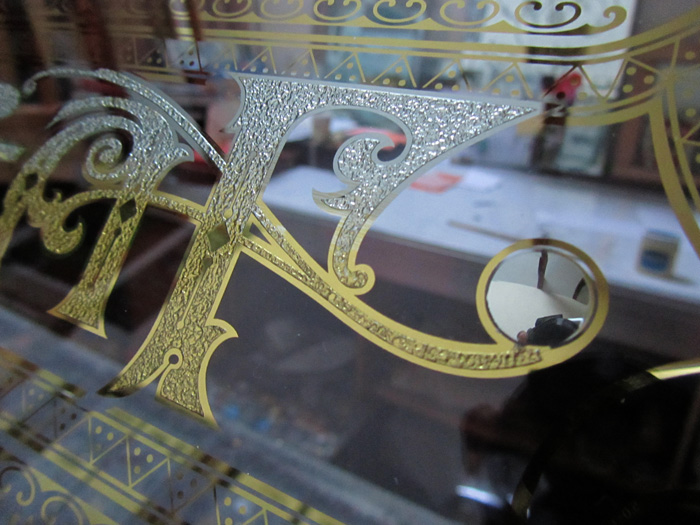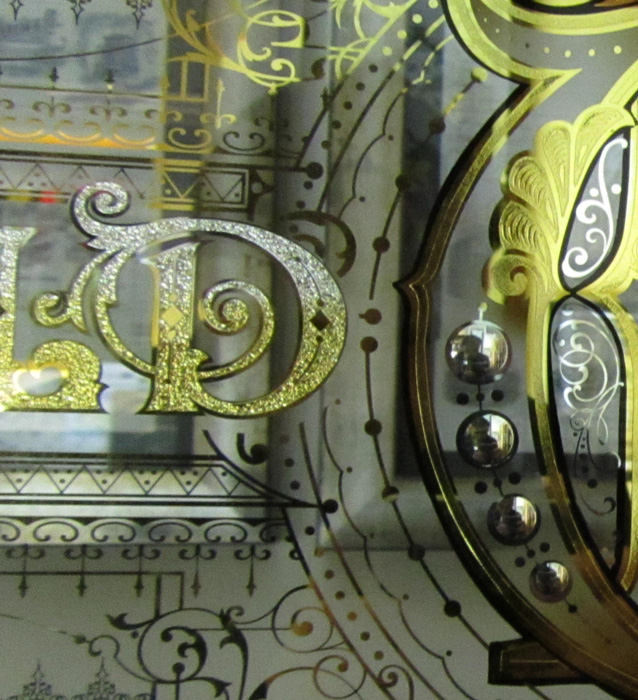
I actually prefere hand painted work also Bruce kind of more satisfying with the end look being hand done. I like to see the brushwork sometimes .I can get a much tighter detailed job with screen printing and that also has it's place. Do you pounce your pattern on your gold? I have used carbon paper with great success and no marking to the glass.. Hey Bruce what is the weather like over your way I bet your nice and warm? I took the dog round the block tonight and it was -5 ,we are cold over here right now..
warm? not exactly...the weather here is really quite strange lately. Unseasonably wet. We have suffered 10 years of drought with water storage levels getting extremely low. To the point that for the last couple of years it has been illegal to water gardens, wash cars, fill swimming pools, etc. Another year of drought would have seen the end of many water-reliant industries, spiralling food prices and severe hardship for everyone.
But it broke, not just with rain...but with floods. unbelievable amounts of water across the country, especially up north. (despite which, Melbourne's water storage is still only about 50% and will take another couple of years to fill)
Australia is a land of extremes.
There's no doubt screen printing goes to tighter places than hand-painting (unless one is extremely fastidious and prepared to spend endless hours striving for perfection)
I can see the tight detail in one of the photos...a shot showing not just a clean even scroll, but it even has an etched centre all the way down to a tiny little curl.
As for transfering design onto the back of the gold...I always use carbon paper. I used to use a pounce, but I didn't like the little hills of chalk that can turn a line into a painted line into something that looks like the perforated edge of toilet paper. Carbon paper is great. I use the soft blue paper (not typing carbon) and go over it gently with a very hard and sharp 6H pencil to render a fine faint line. Don't press too hard, otherwise you get a dark thick waxy line. Then I lightly dust it with talc to make the line much more visible.
Now a question for you...I notice you are using blended gilding in your recent works, including your "studio of" piece featured here. Often a blend from 23 carat to white gold (or perhaps it is silver). I assume you are applying one type of leaf, rubbing it back, then applying the other leaf...but I also note that you use this over etched and chipped sections. I wonder; How does that change your method? Perhaps you are sometimes using angel gilding for the background metal. Would you like to share your techniques for getting this effect?
That is Extreme Bruce . We are having some fun over here also with the weather, I hate the cold give me sunshine everyday...
The gold blends are the same for both acid and glue chip, I tend to always gild the gold first and then the 12crt silver look as i find easier to remove the gold than the silver. I have used the chemical process in the past and had good results in removing the silver finish but I find the traditional way of using leaf easier.
Apply your gold and scratch away with a nylon brush almost like a tooth brush but harder,the chipped area kind of blends it self as the chipping helps hide any mistakes and evens out the blend. Attached a panel I designed for a workshop I had here wih Coline Samin from Cork Ireland a few weeks ago. This shows a blend through the letter. The carbon paper works great and I also try to only press lightly or you do get that waxy blue carbon left on the gold .Hope that helps mate.
I haven't visited the forum for a while. What a treat to see this newest creation, Dave. It is over-the-top-beautiful!
Bruce - I've always admired your work. The photo you've displayed here is elegant in it's simplicity. Exquisite work by itself - but incredible to hear that it is hand-lettered. Very nicely executed.